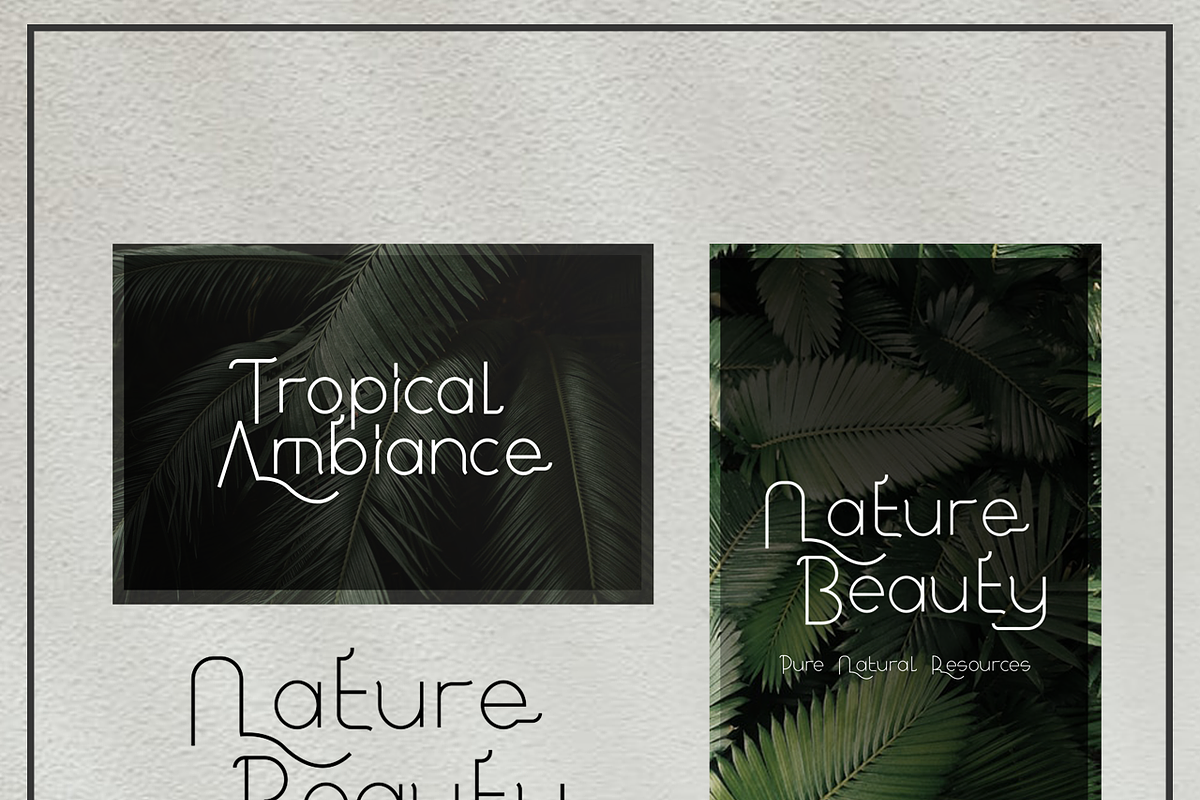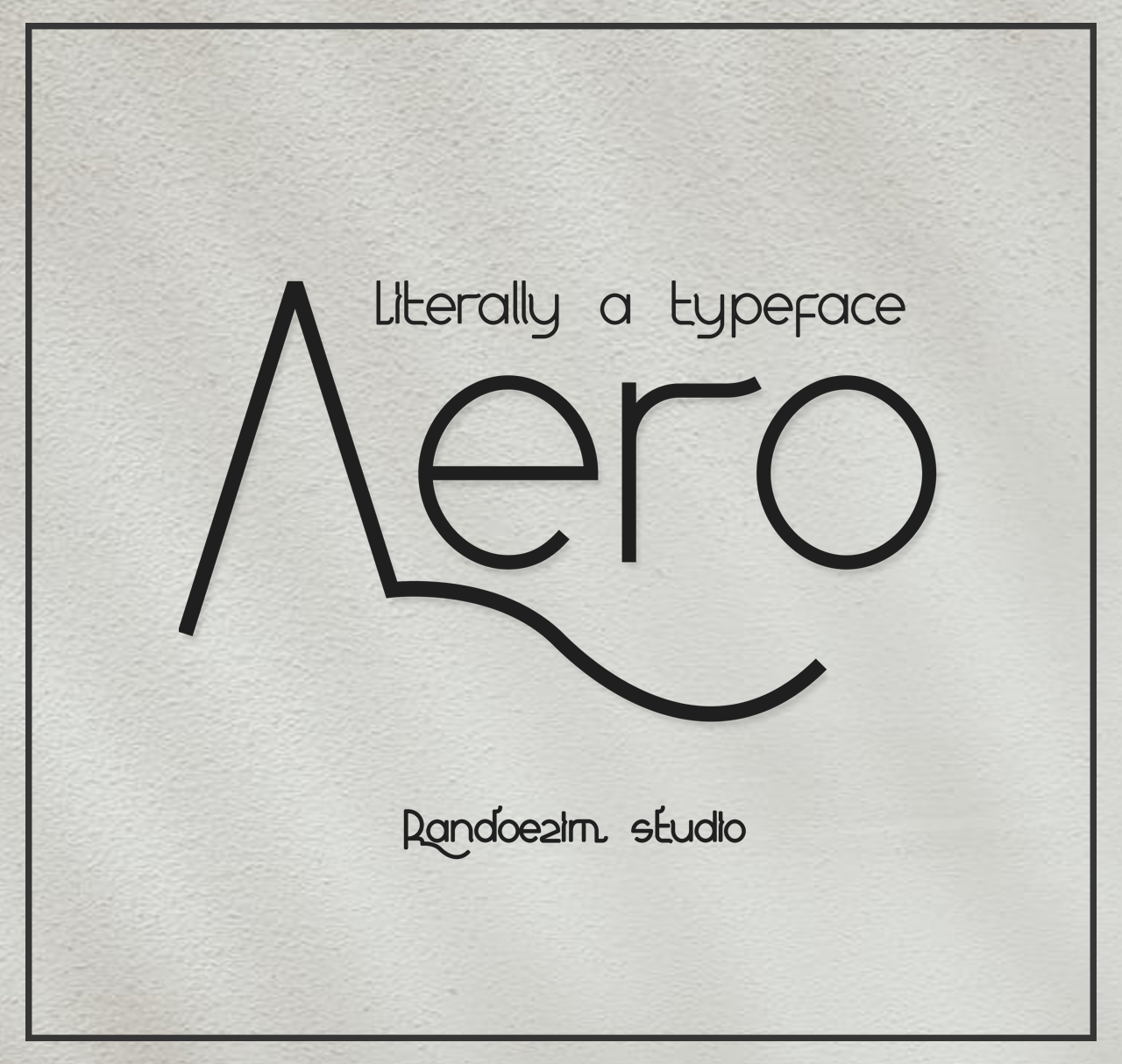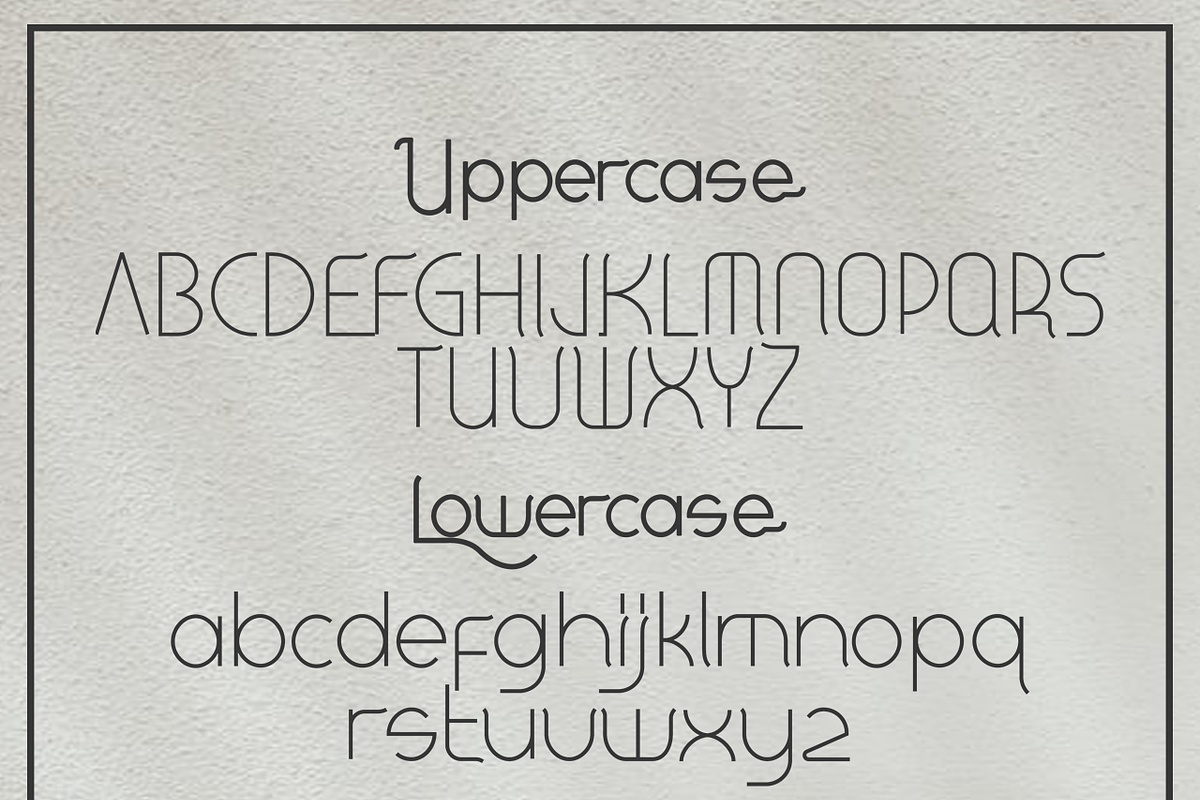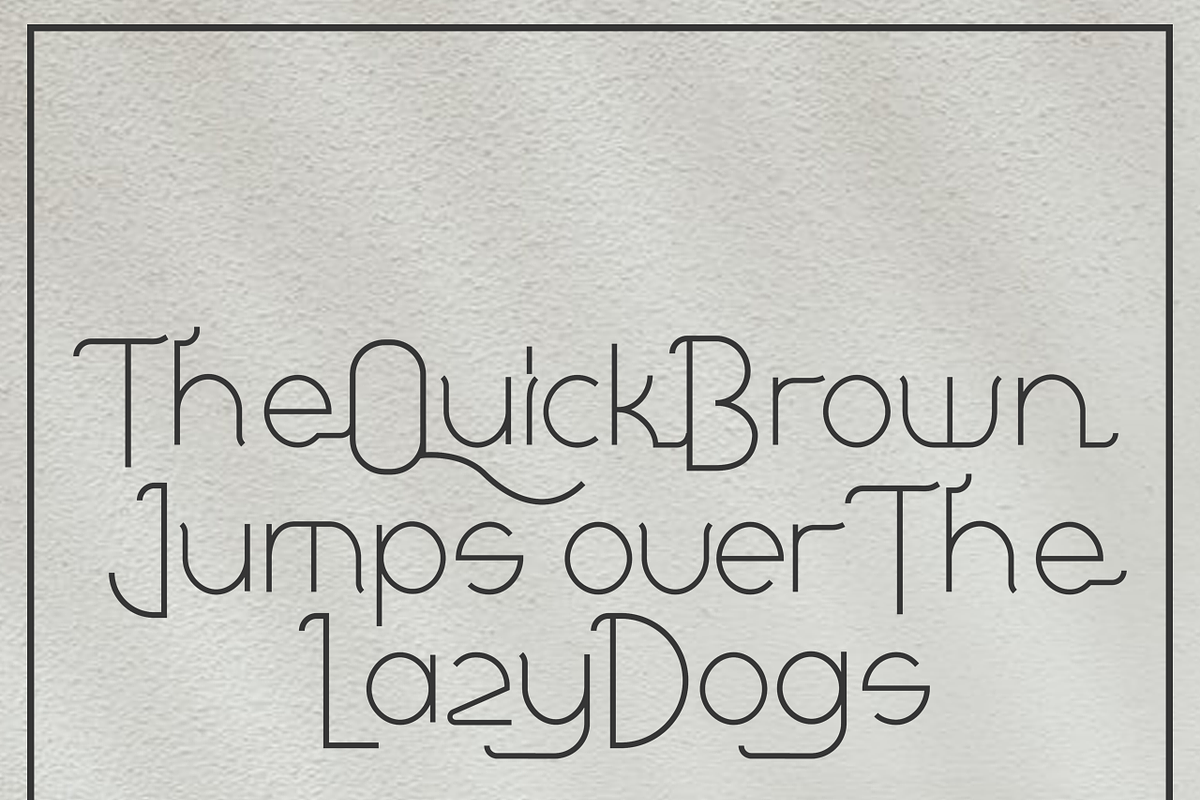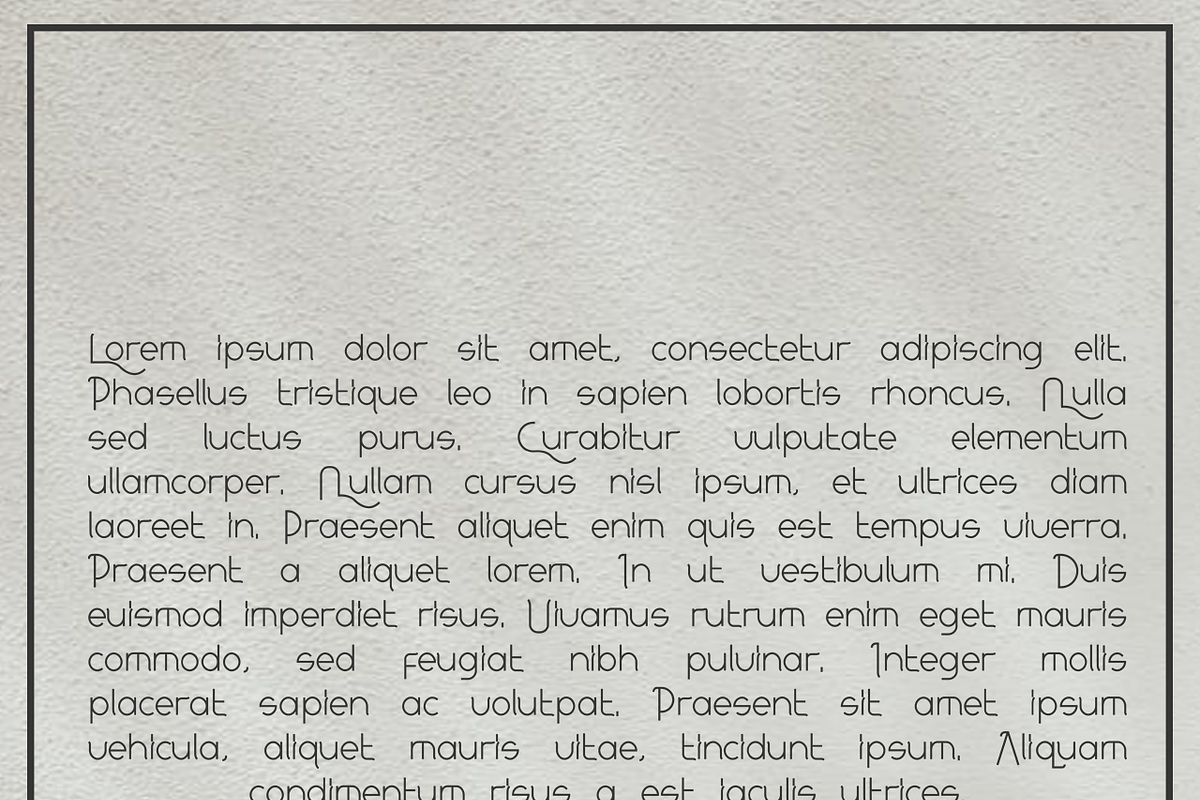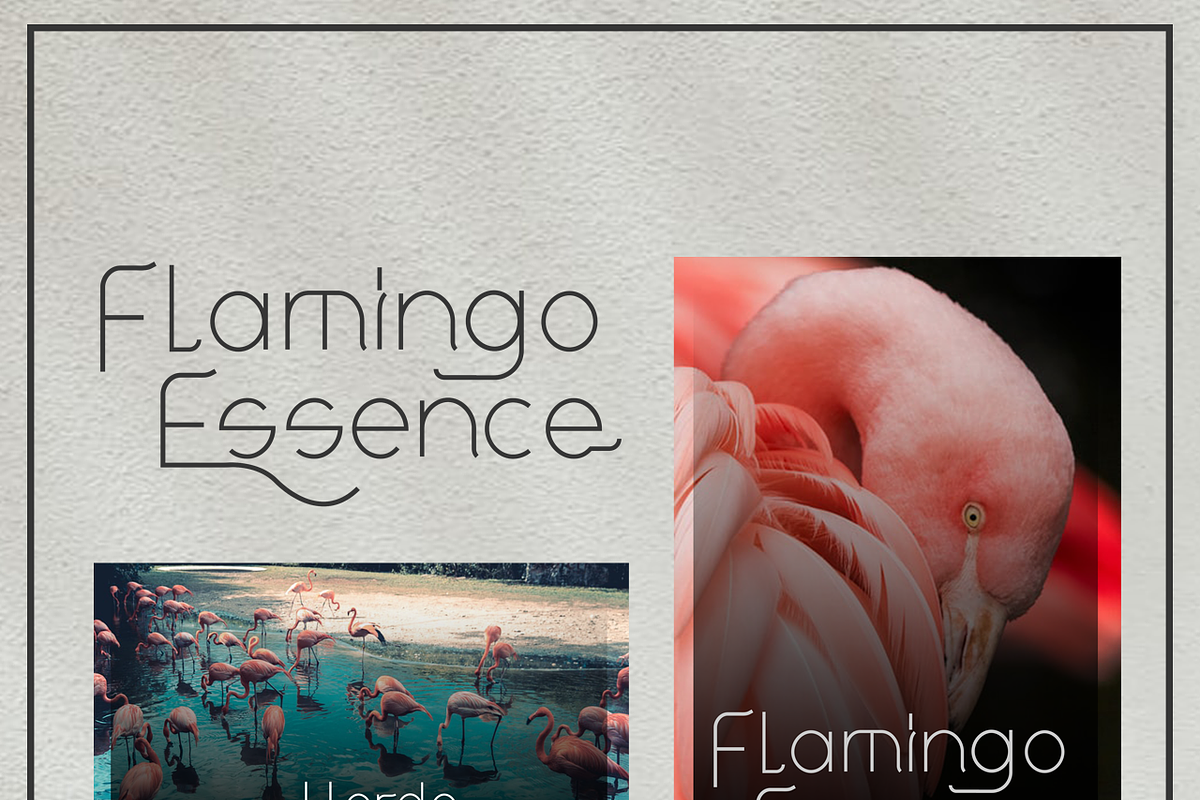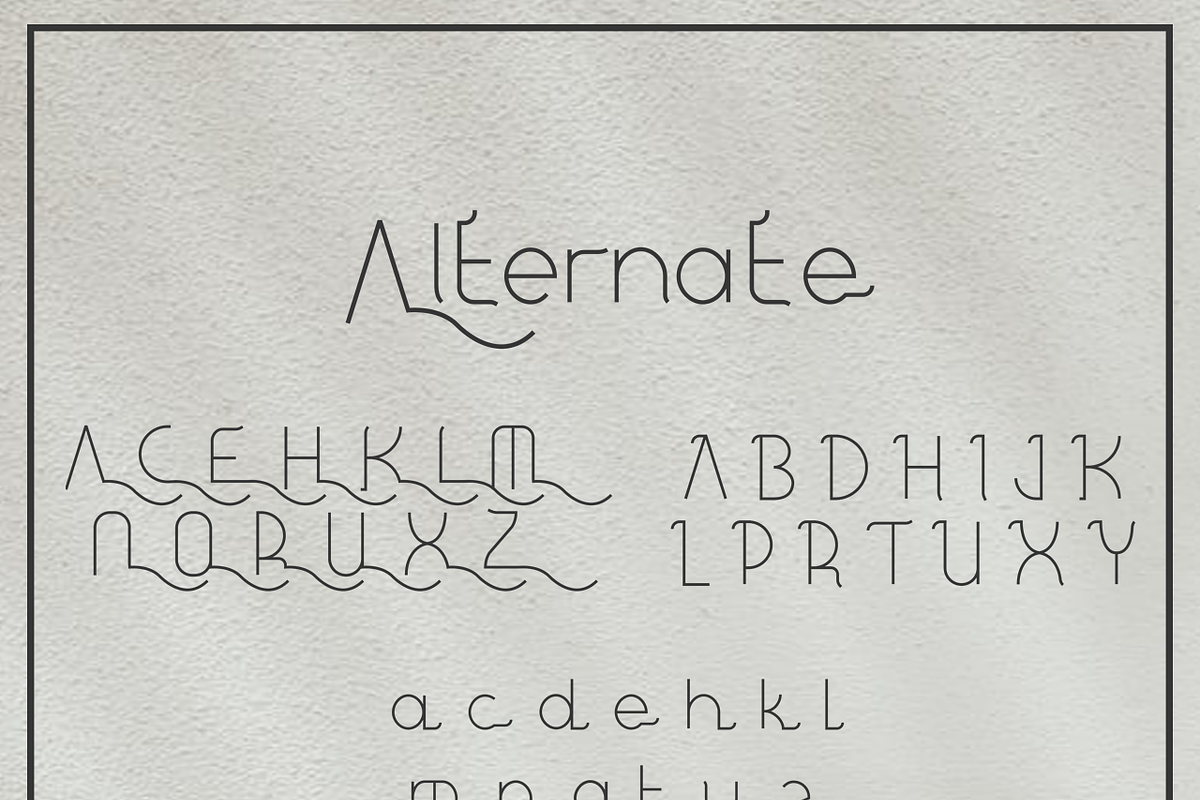
Aero | Sans serif Typeface
Aero a sans serif typeface. Monoline with sharp edge makes it feel elegance and cold. Very versatile for vintage or old time design. Comes with 48 unique alternates. we provide otf and ttf. Lets create magnificent things with Aero typeface